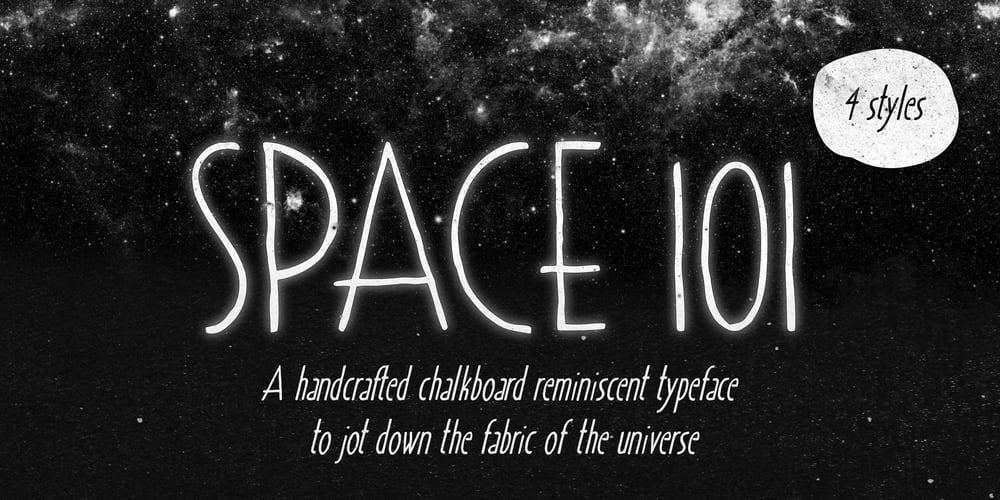
Space 101 Font Family was designed by Reuben Davern and published by Azure Studio. Space 101 contains 4 styles and family package options. Introducing the first typeface by Azure studio, Space 101!Space 101 is a handcrafted chalkboard reminiscent typeface with irregular slender lines and a quirky personality.This typeface is perfect to add character and charm to bodies of text and heading where the slight imperfections tie your whole design together.The inspiration for Space 101 was found in an old signwriting book. The character shapes were updated and improved while still retaining the same charm. The typeface gave me interstellar space travel vibes reminiscent of early books based around space travel, which is why I decided to call it Space 101.I hope you enjoy this typeface and if you have any questions or comments get in touch. I’d love to hear from you. fonts@azurestudio.co.nz